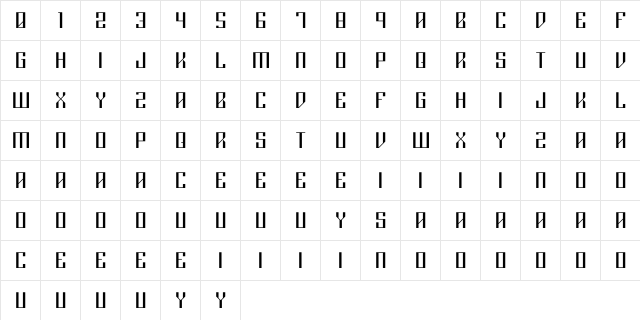
RigorMortis Light Regular Font Preview
RigorMortis Light Regular
RigorMortis Light Regular Font Details
Design Context for RigorMortis Light Typeface
RigorMortis Light is a composed and adaptable typeface that performs quietly and consistently across a wide range of design contexts. Its slender proportions lend an understated elegance to any composition.